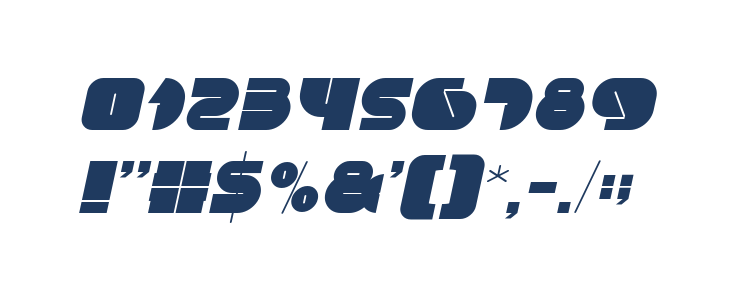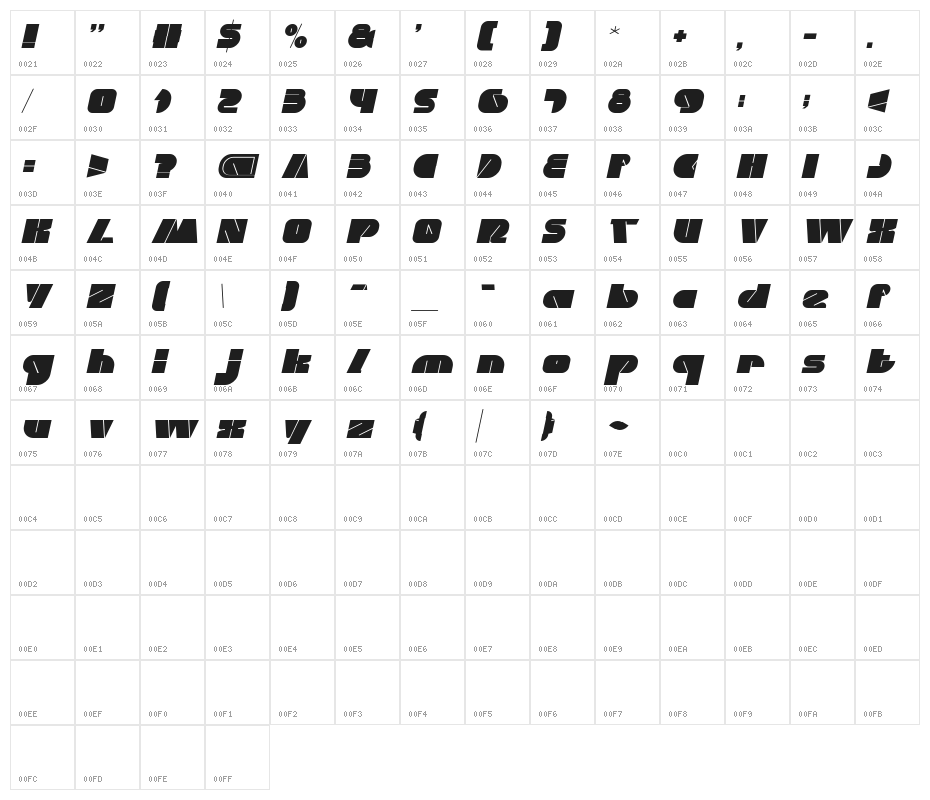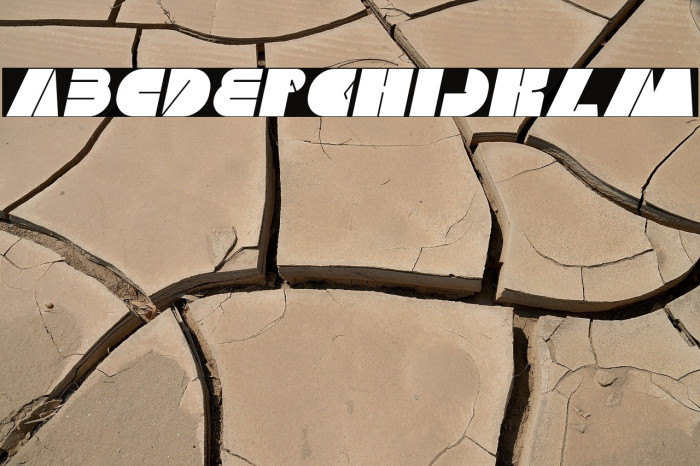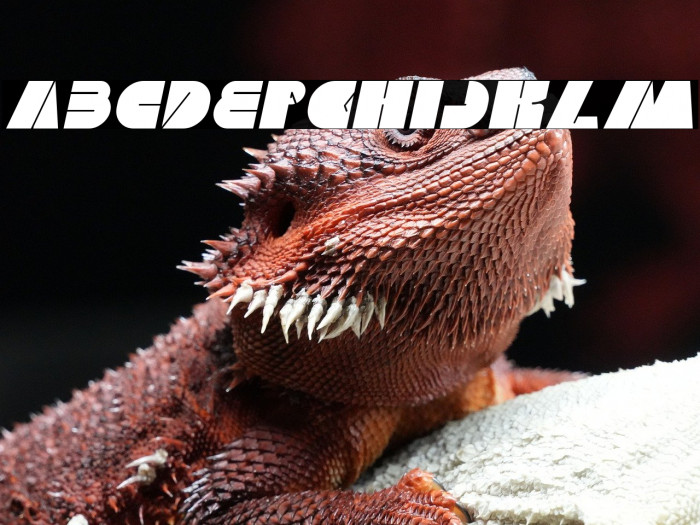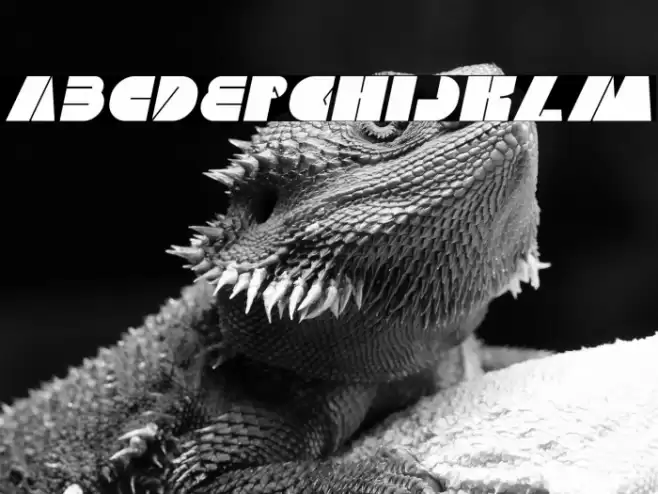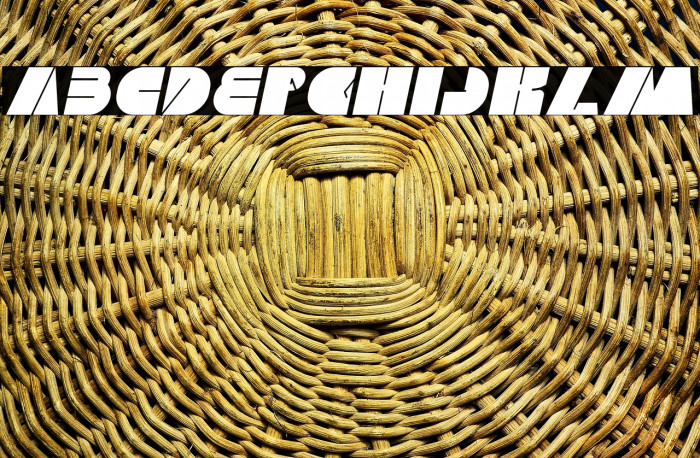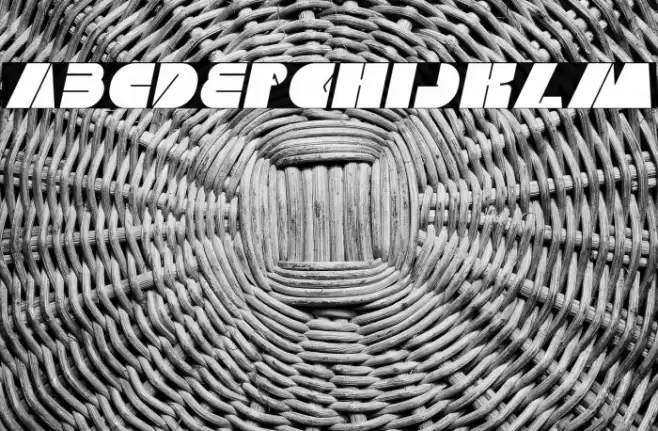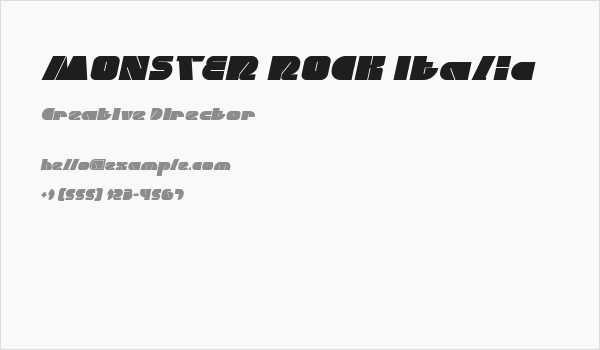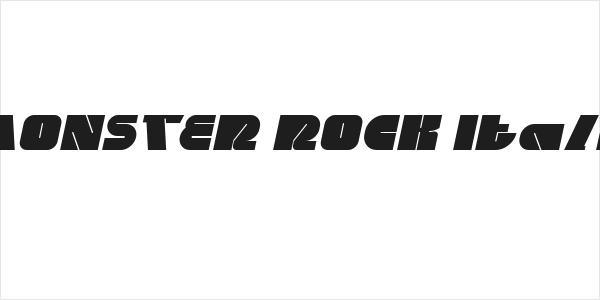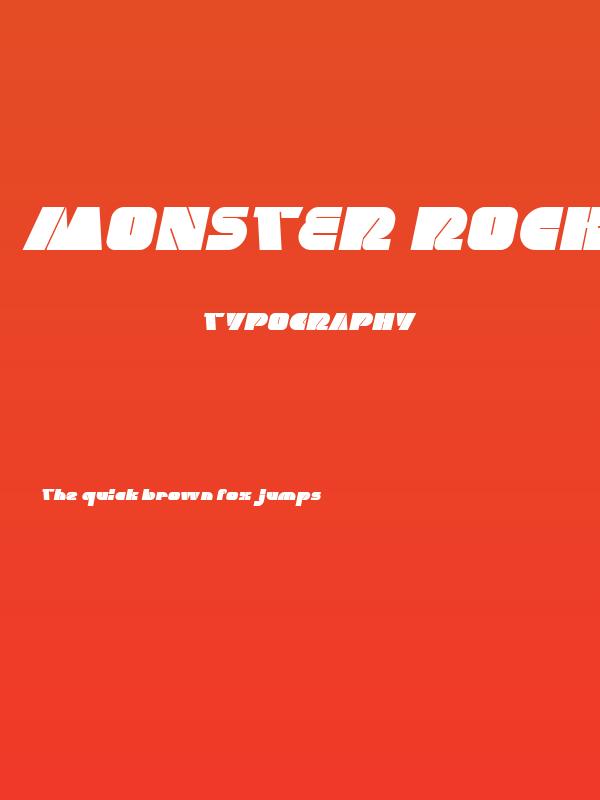
MONSTER ROCK Italic Font
MONSTER ROCK Italic Description
This bold and dynamic font features a striking geometric design with sharp angles and a strong presence. The uppercase letters are particularly distinctive, with a futuristic and edgy style that commands attention. The lowercase letters maintain the boldness while offering a slightly softer edge, making them versatile for various design applications. The numbers and special characters continue the theme with consistent weight and style, ensuring a cohesive look across all text elements. The italic slant adds a sense of motion and energy, enhancing the font's modern appeal.
| Proposed Projects | Ideal for music album covers, sports branding, video game titles, and dynamic posters. |